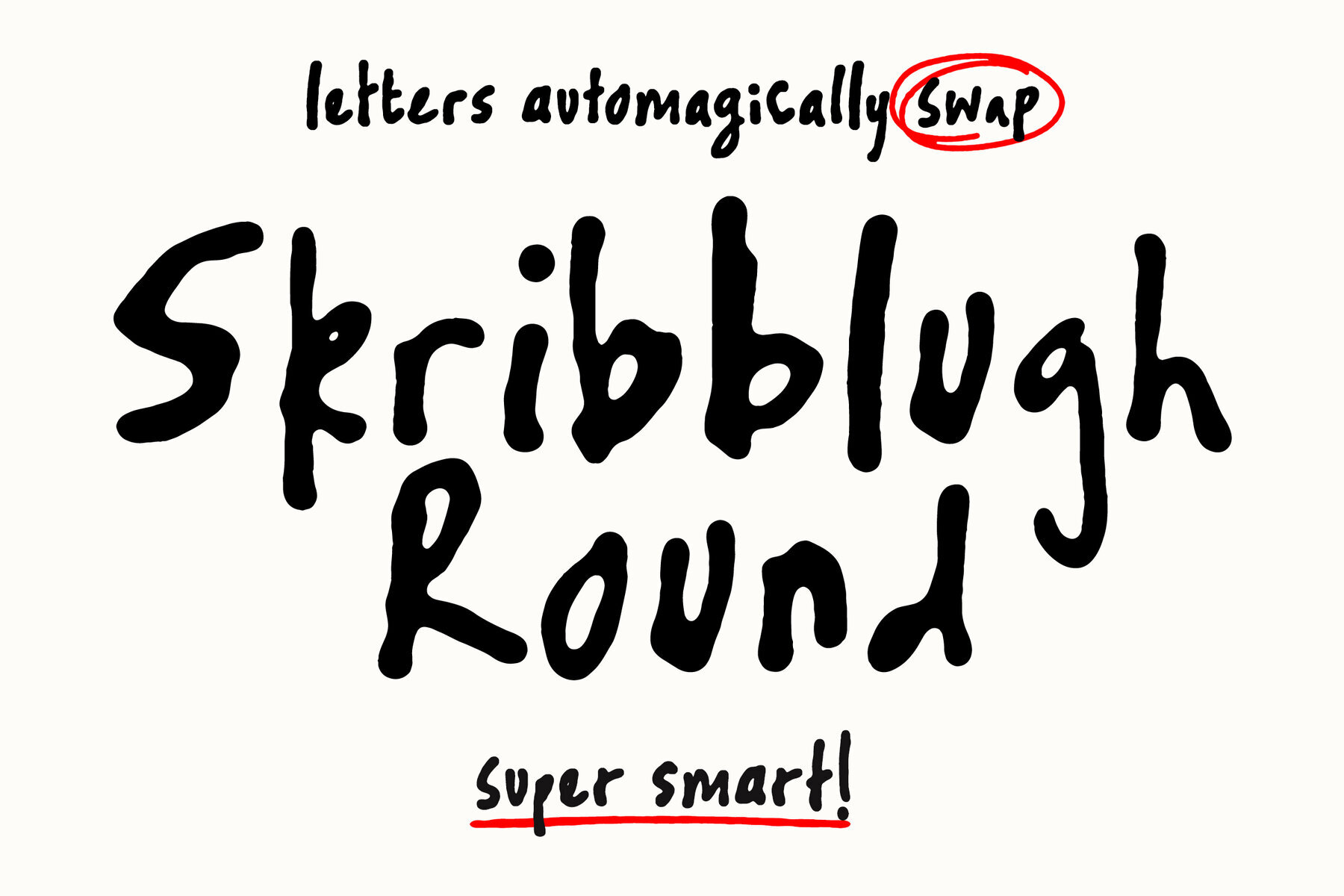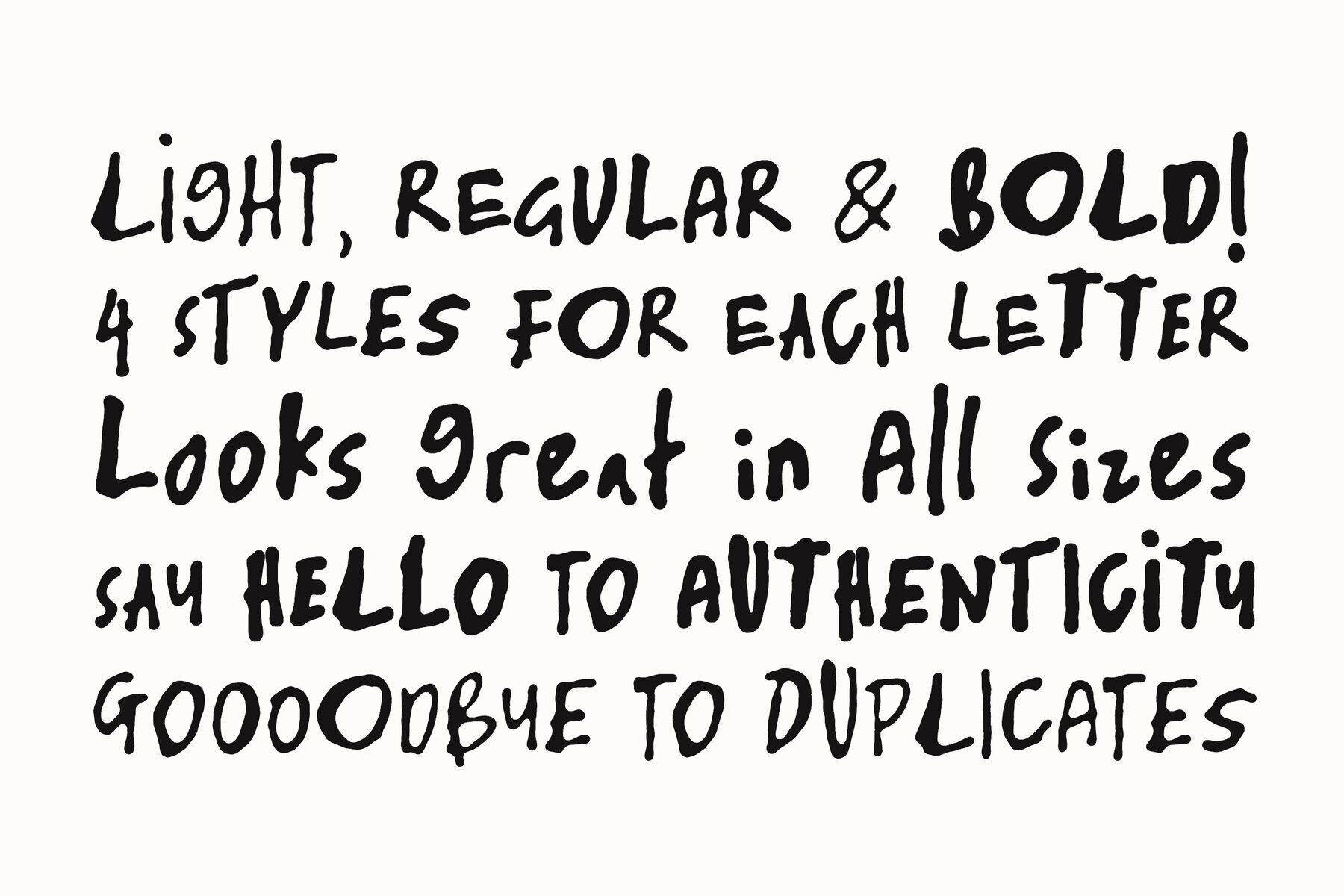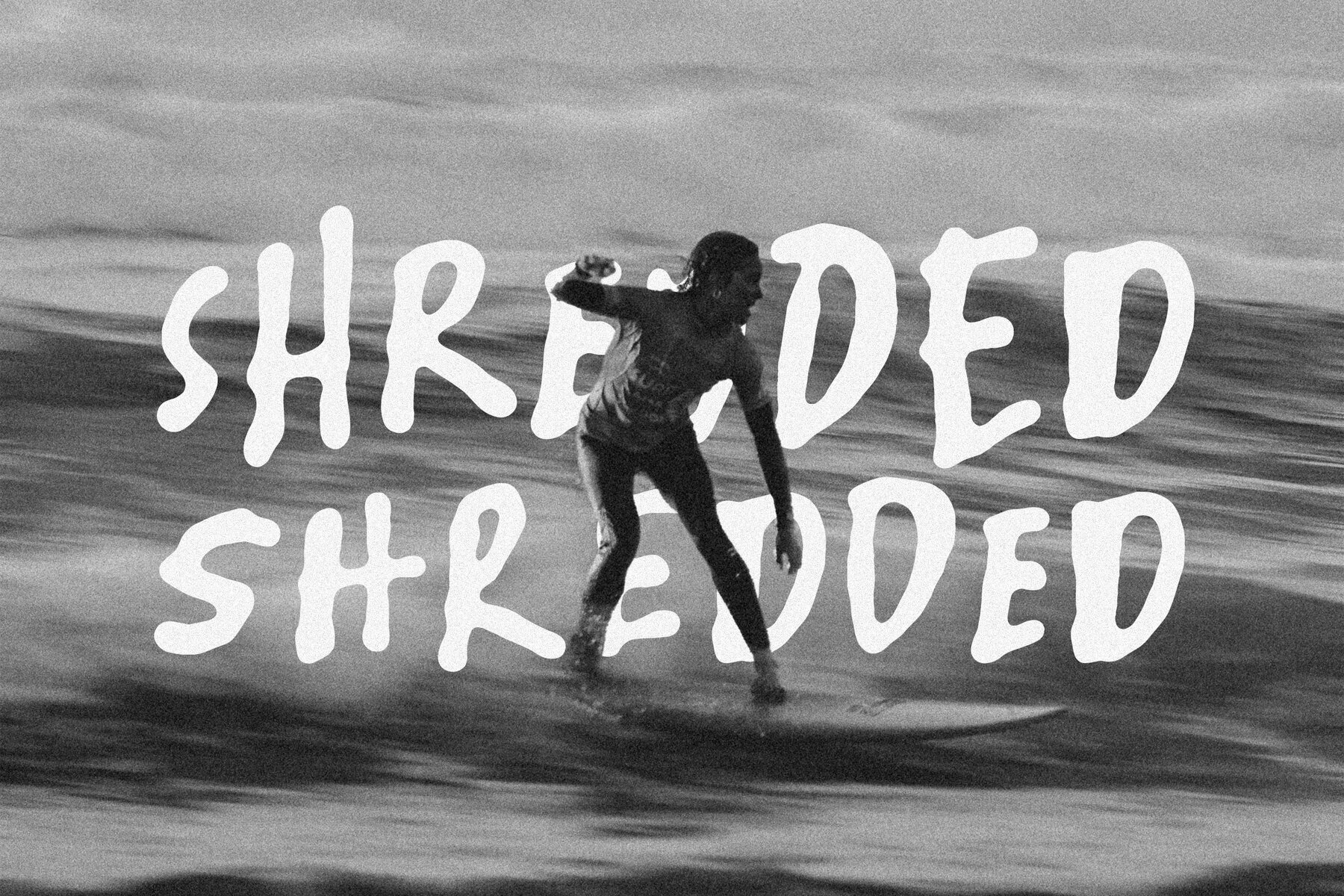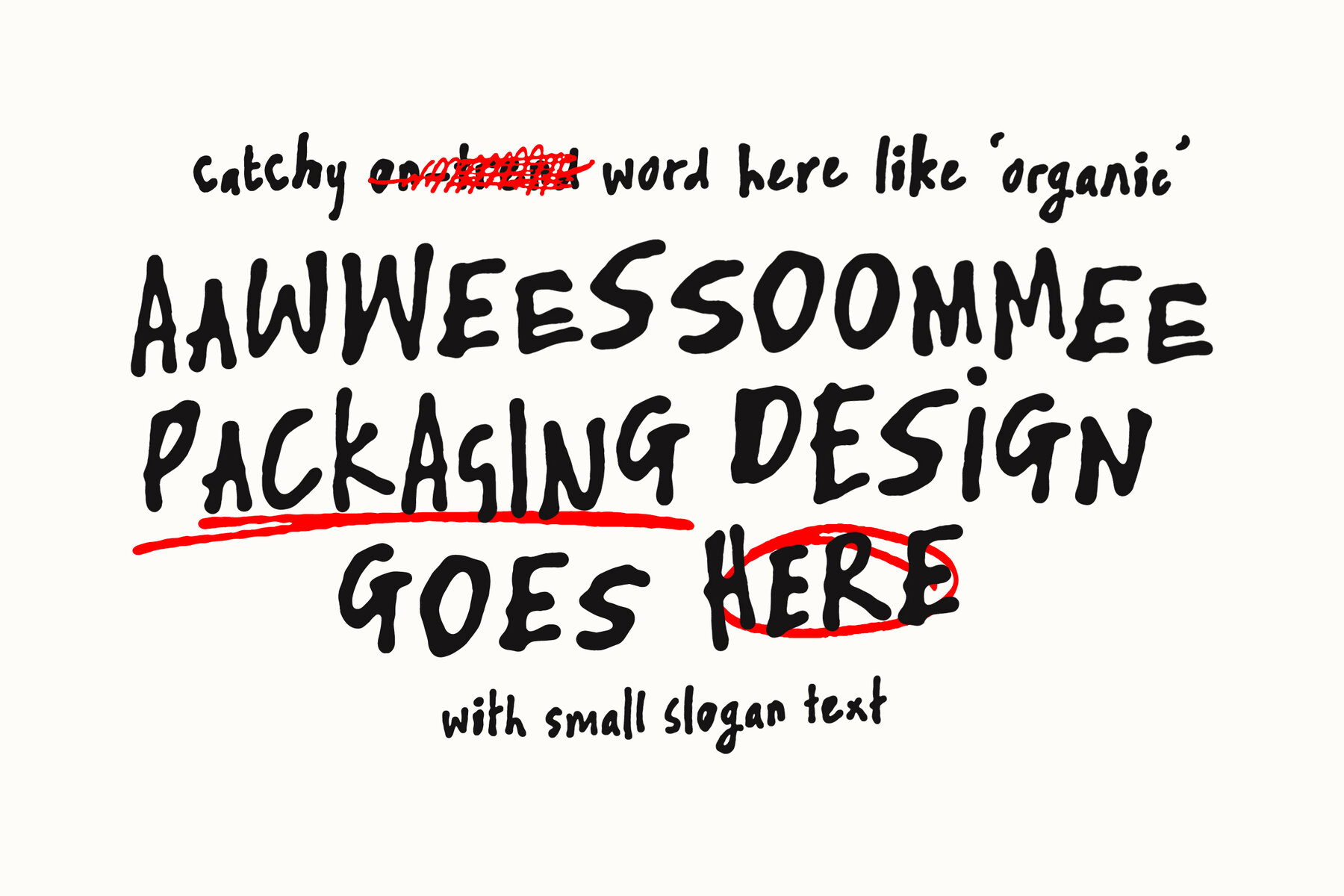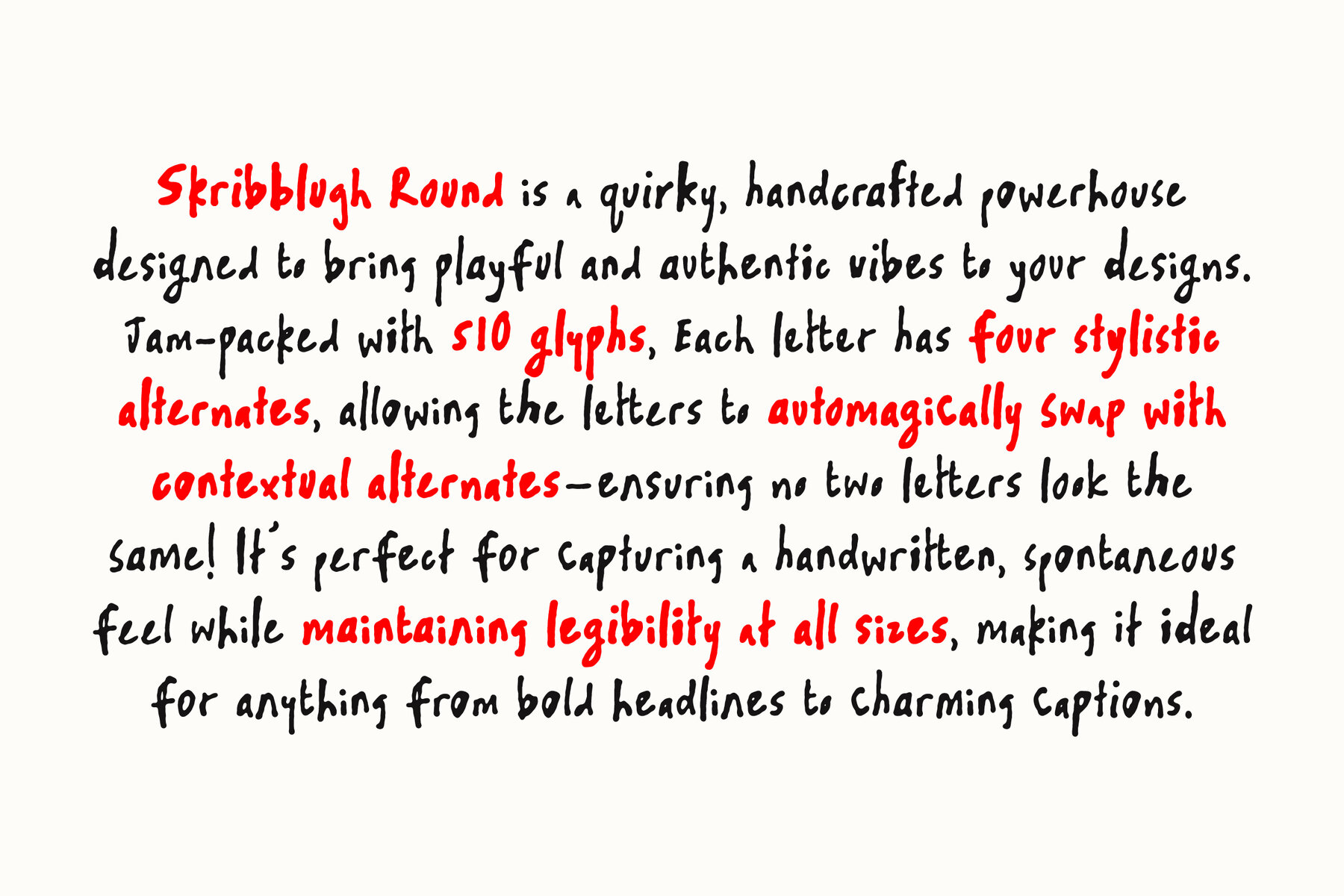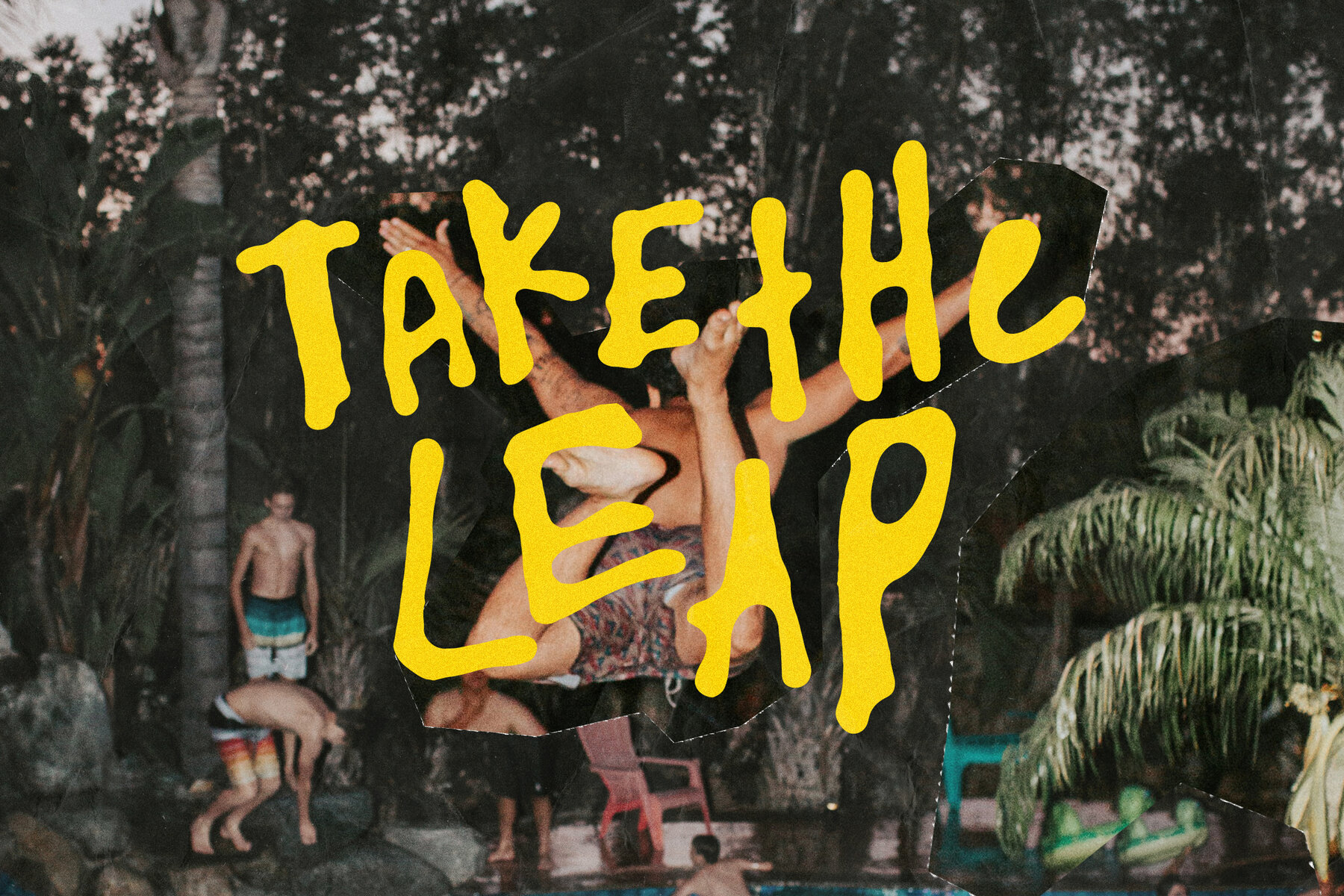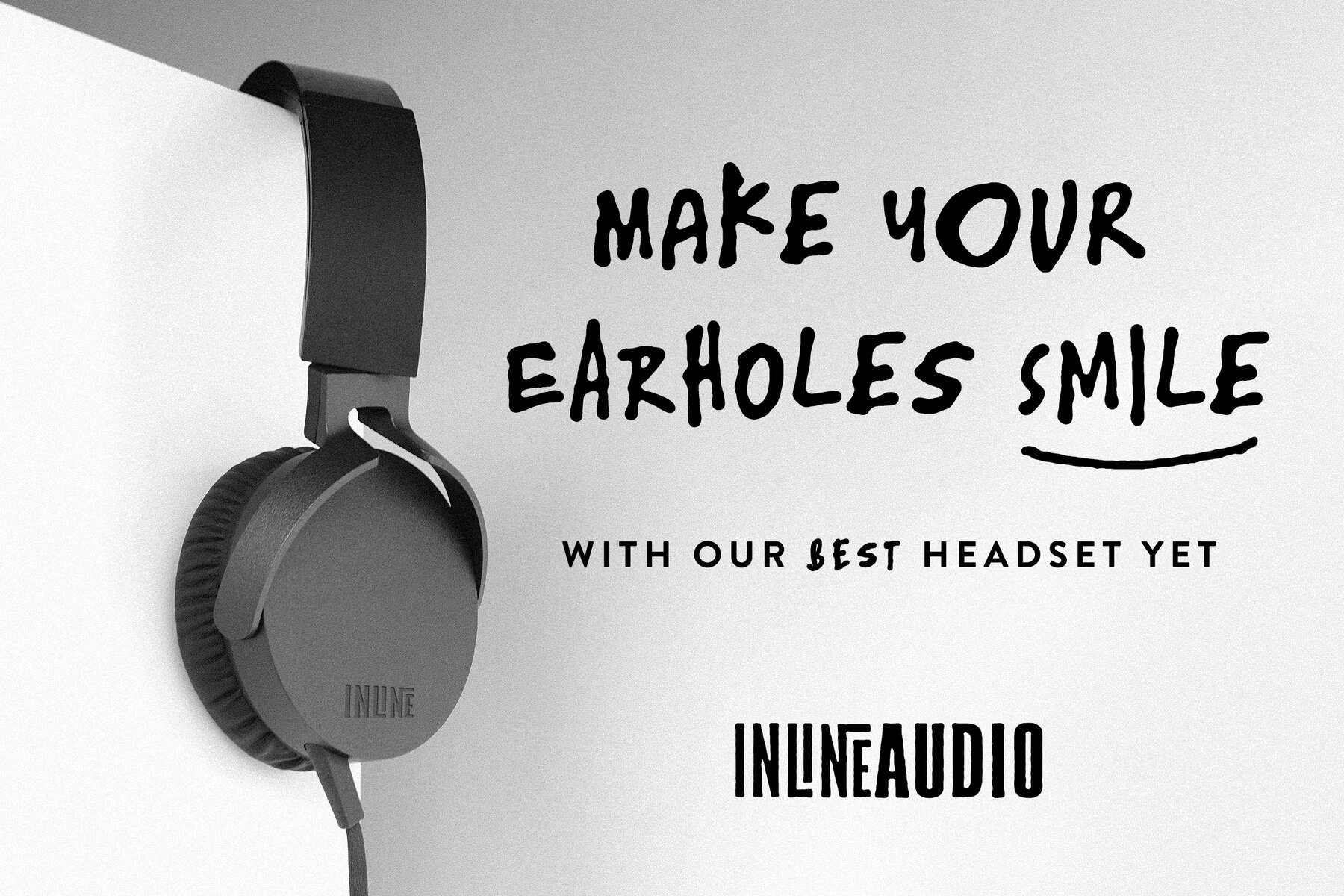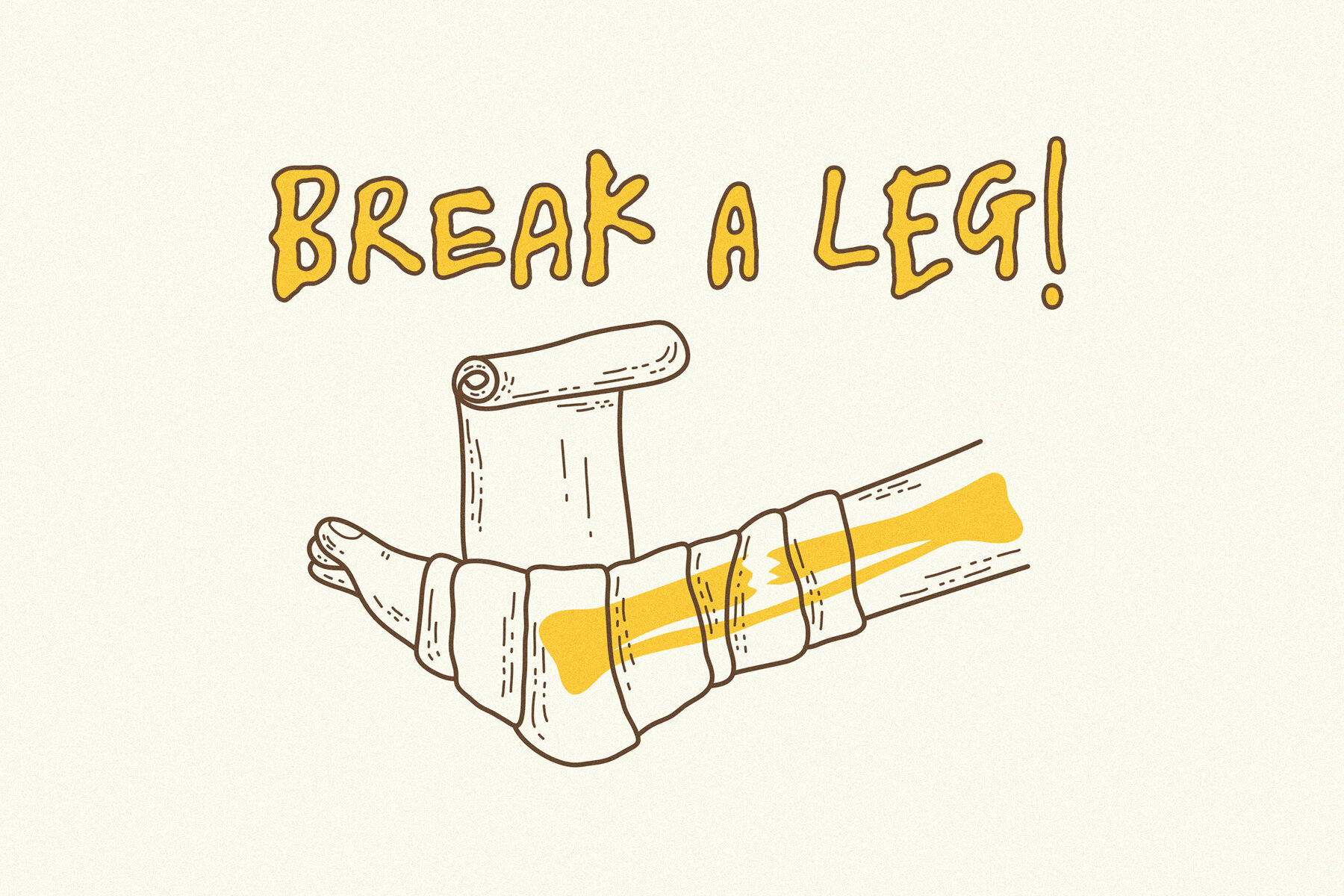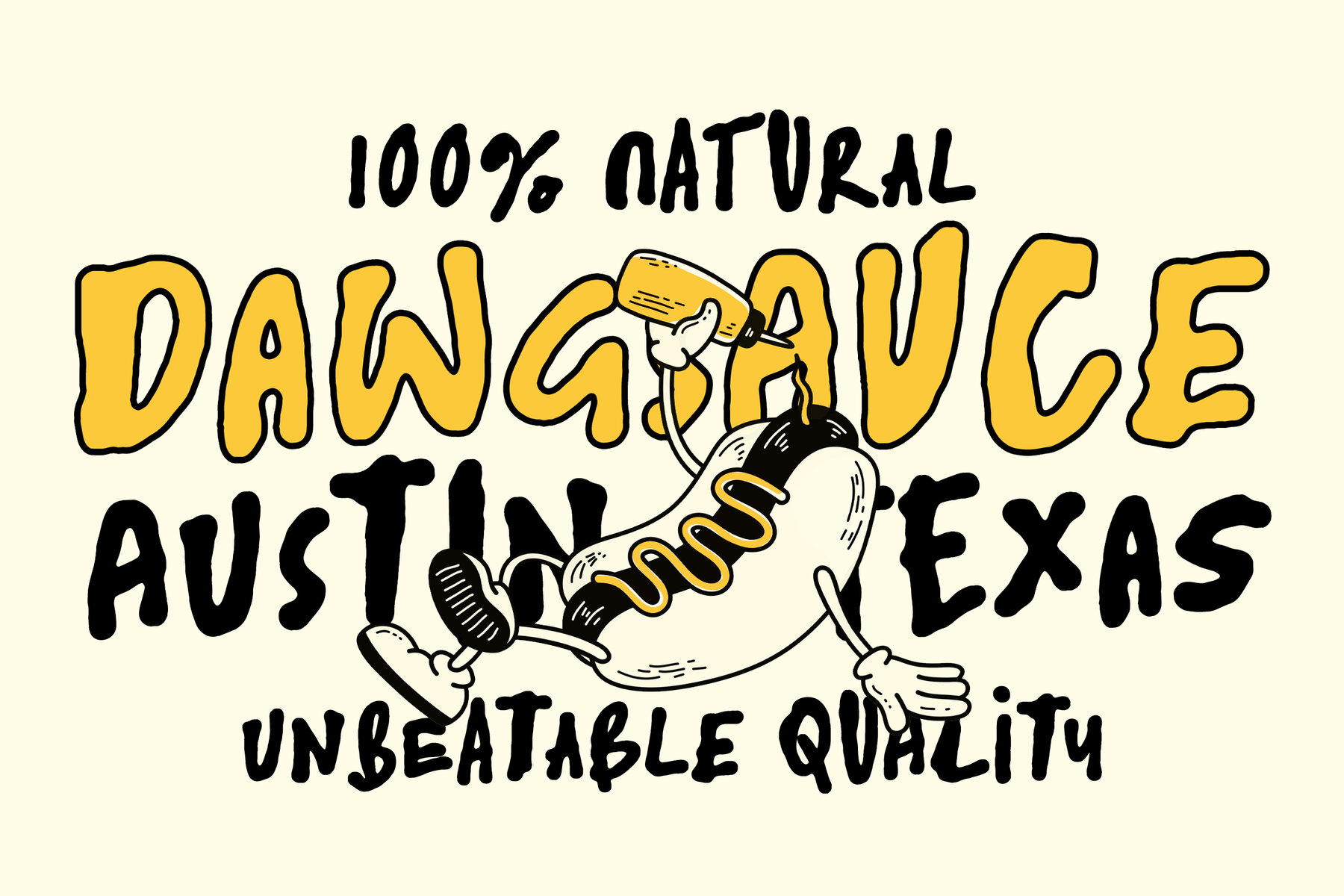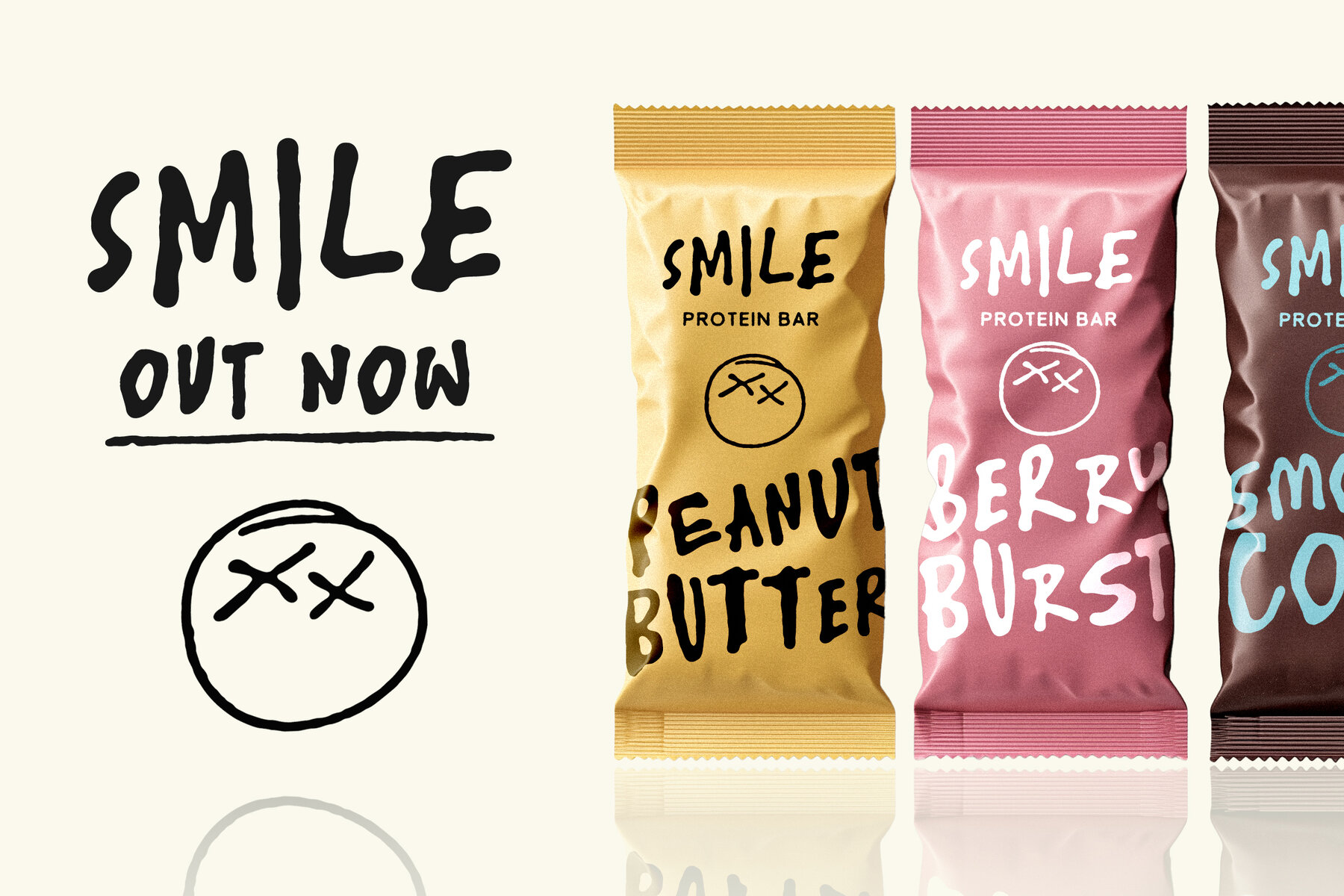
TC Skribblugh Round Font
TC Skribblugh Round Light
TC Skribblugh Round Regular
TC Skribblugh Round Bold
TC Skribblugh Round Extras
Introducing Skribblugh Round – a fun, bold, and lively handwritten typeface that brings personality and spontaneity to your designs. With its playful letterforms, natural imperfections, and a host of contextual alternates, Skribblugh Round will add an unmistakable human touch to any project. It’s the perfect choice for brands that want to stand out with a unique, handcrafted feel. This quirky powerhouse comes in three versatile weights—Light, Regular, and Bold—each loaded with 510 glyphs, including four stylistic alternates for every letter. Skribblugh Round’s smart contextual alternates automatically swap between these styles to give your text a more authentic, handwritten look. Say goodbye to mechanical repetition and hello to endless typographic variety! From bold headlines to dynamic packaging and eye-catching social media posts, Skribblugh Round excels at all sizes, bringing an organic, handcrafted vibe to every setting.